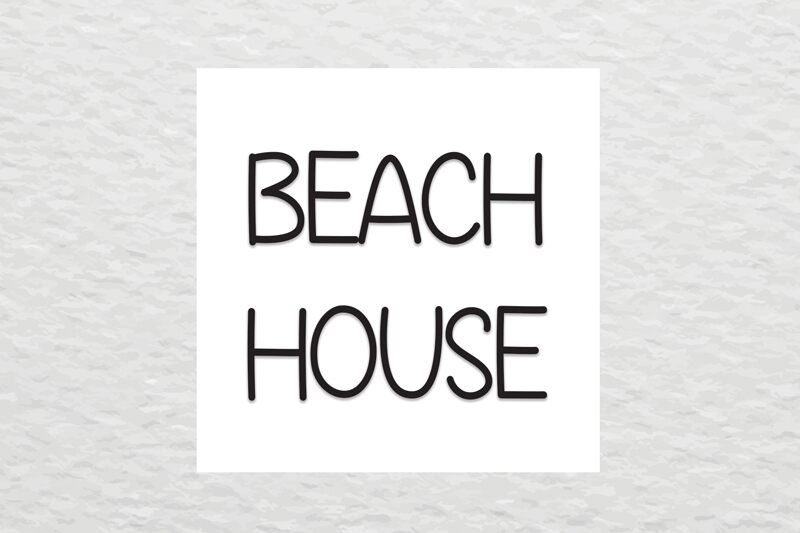
Beach House
Beach House, a charming creation by Scratchones, exudes a playful handwritten style. With its light weight and all caps format, this font is ideal for various projects.
Use it to bring a whimsical touch to children's book covers or invitations, infusing the design with warmth and joy. For branding purposes, Beach House adds an element of fun to product packaging or logos. Its block letter structure lends itself well to creating eye-catching headlines in magazines or posters, capturing attention with its unique and vibrant personality.